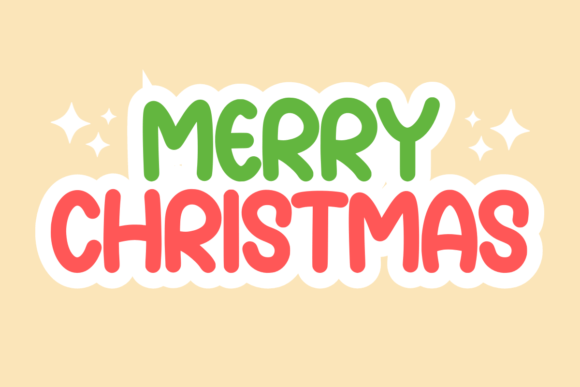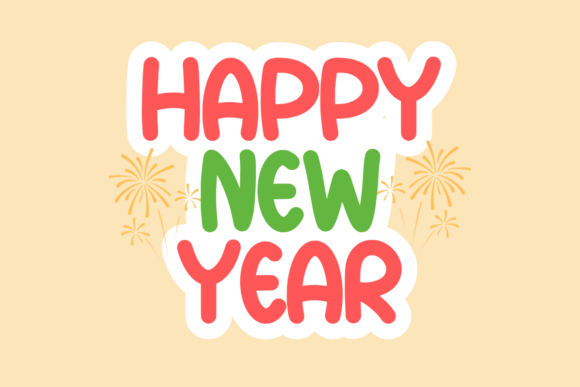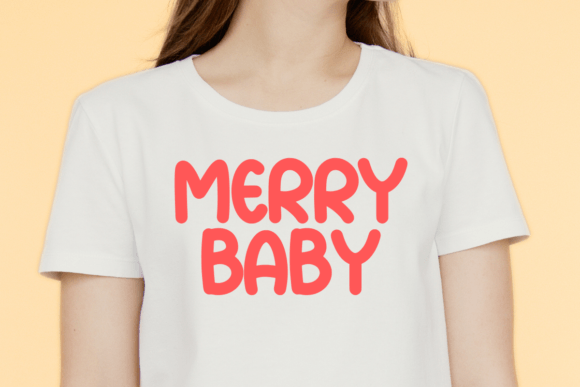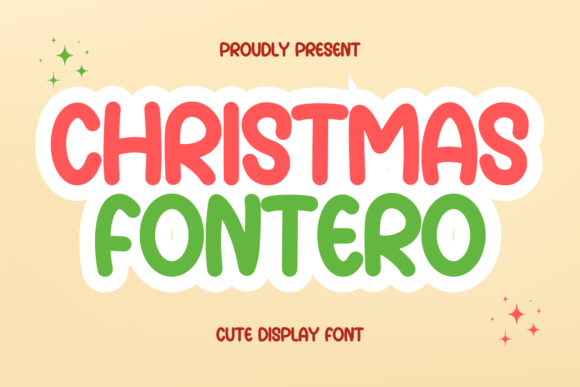
Introduction to Christmas Fontero Font
Christmas Fontero is a handwritten Font with a unique and cute style based on bold and minimalist shapes touched in a modern and elegant style.
This font is very suitable for various creative needs such as printing, books, titles, headlines, photography, decoration, branding, logos, and others .